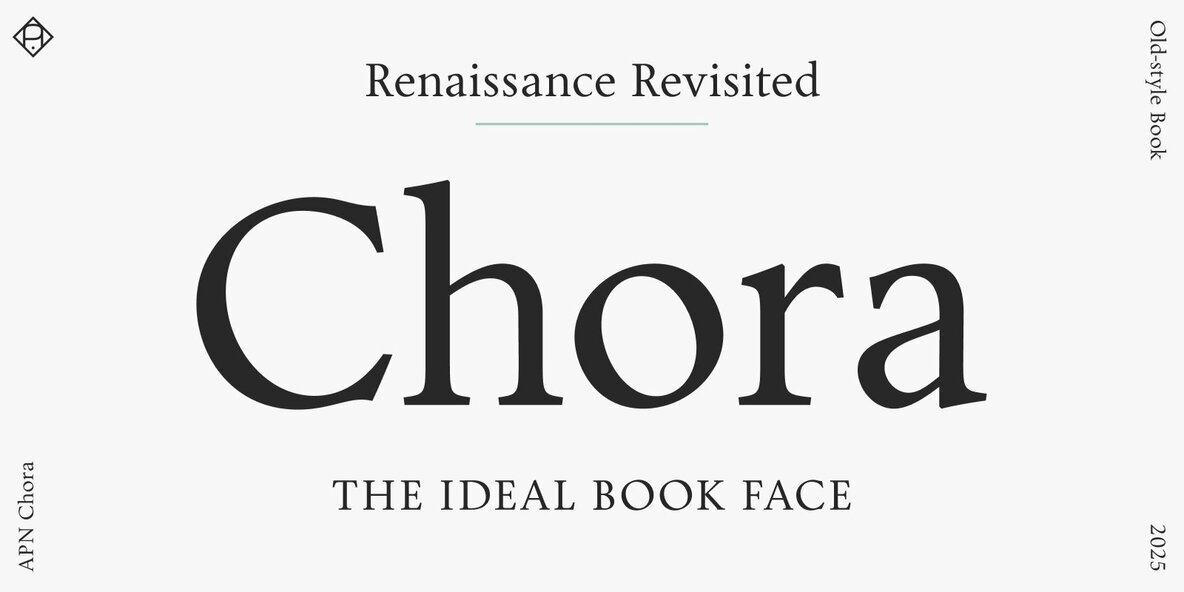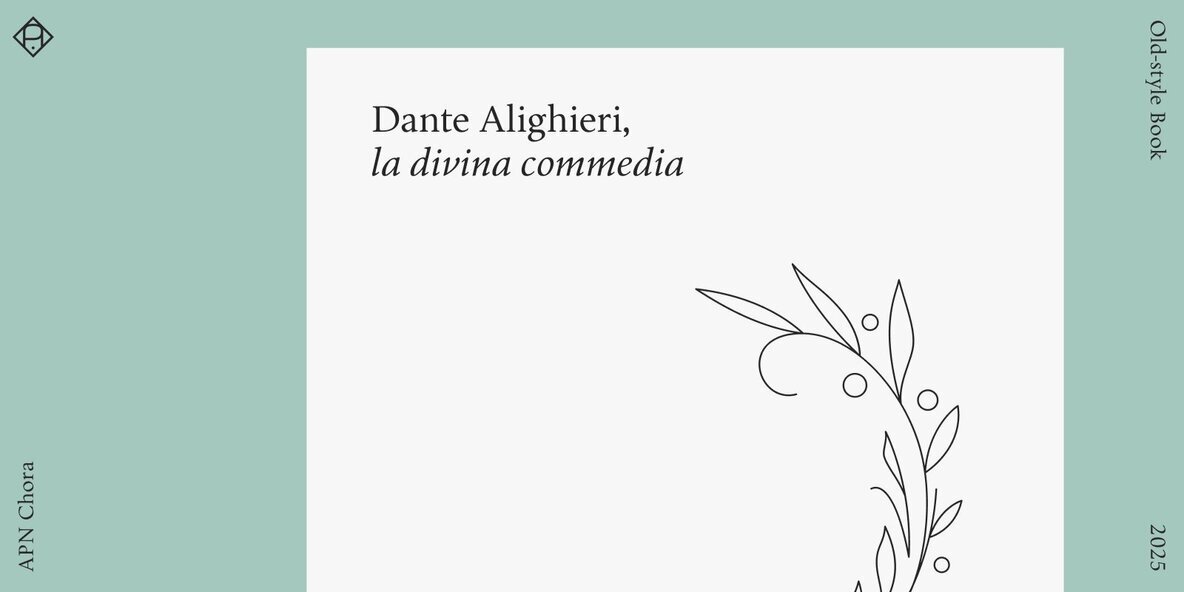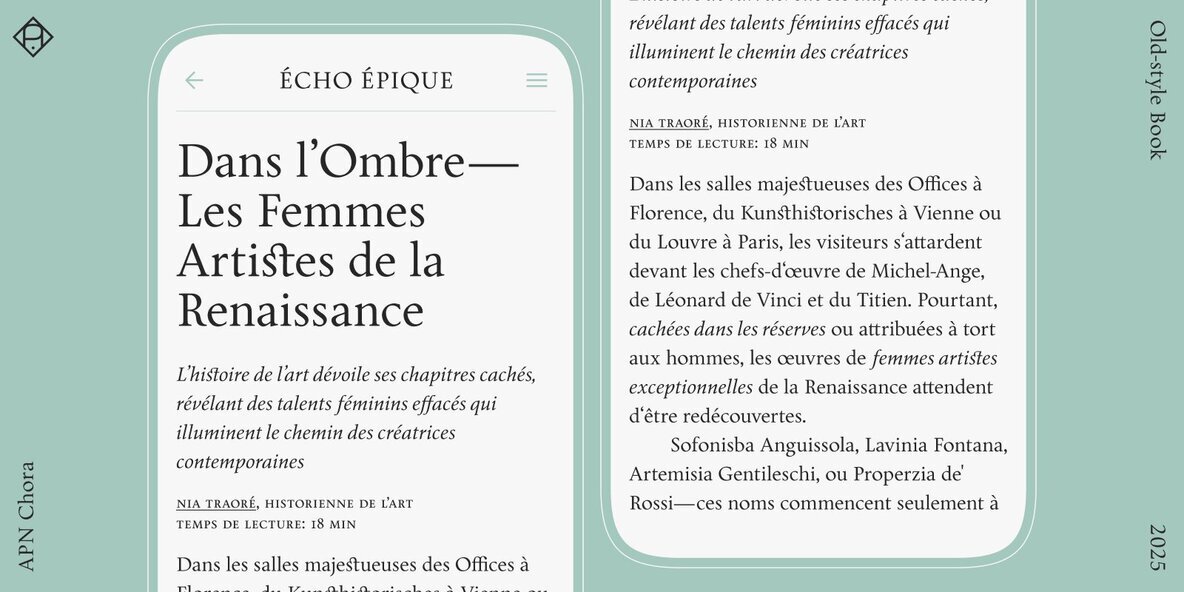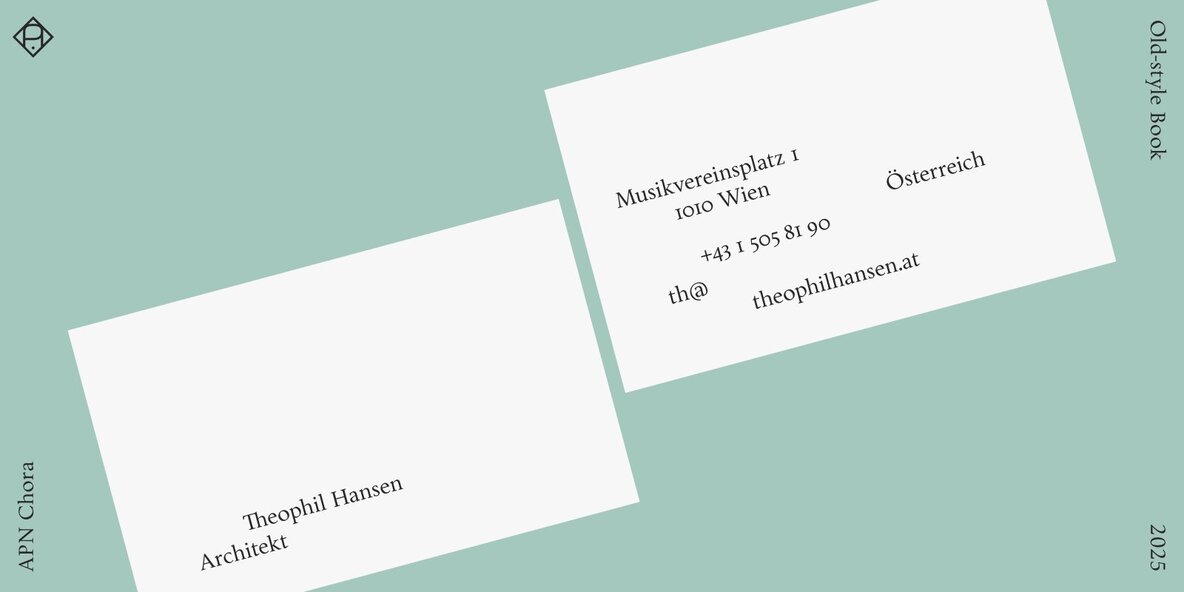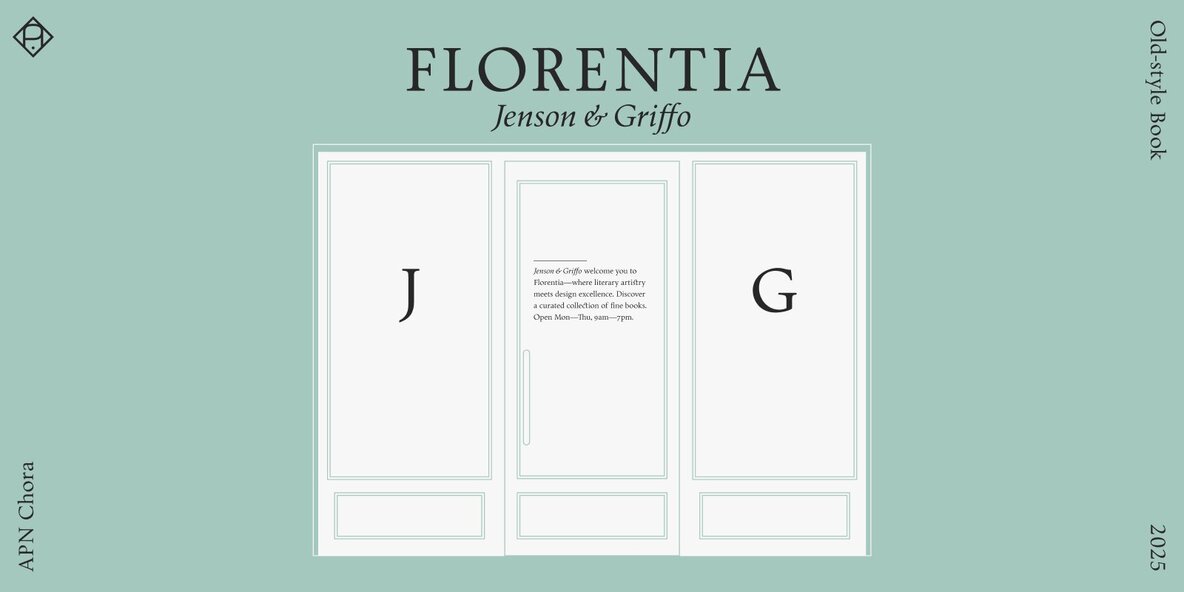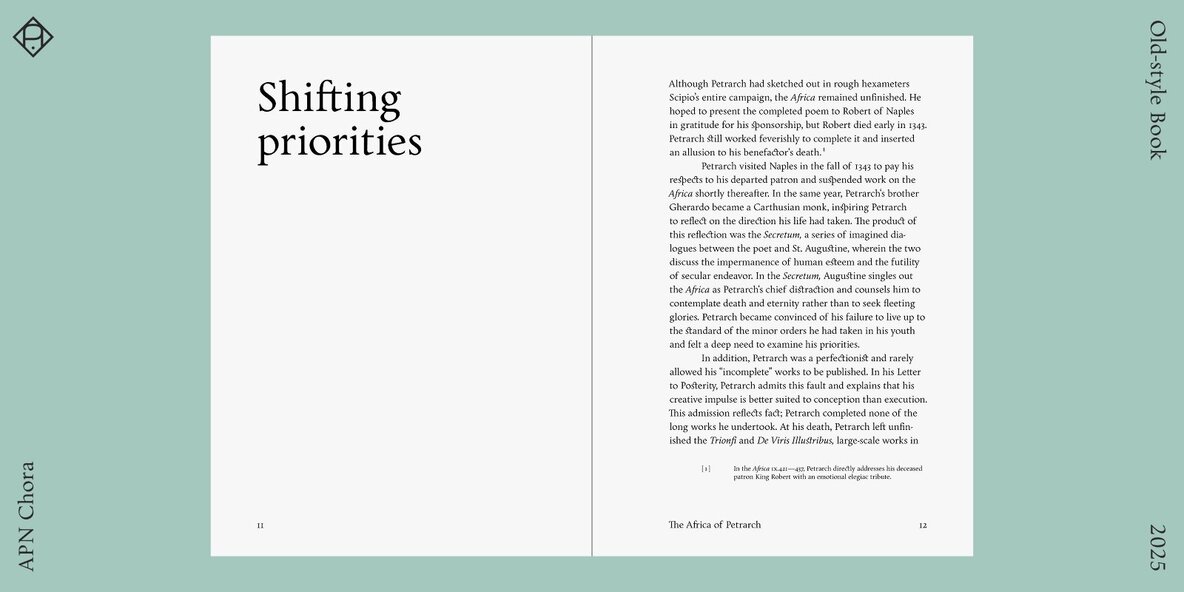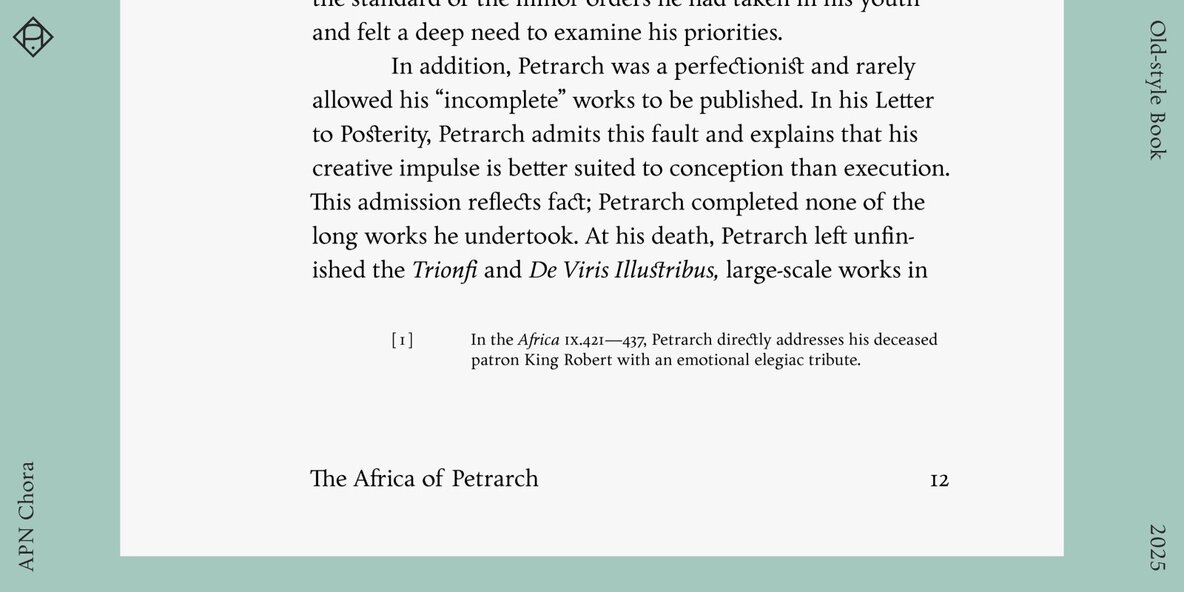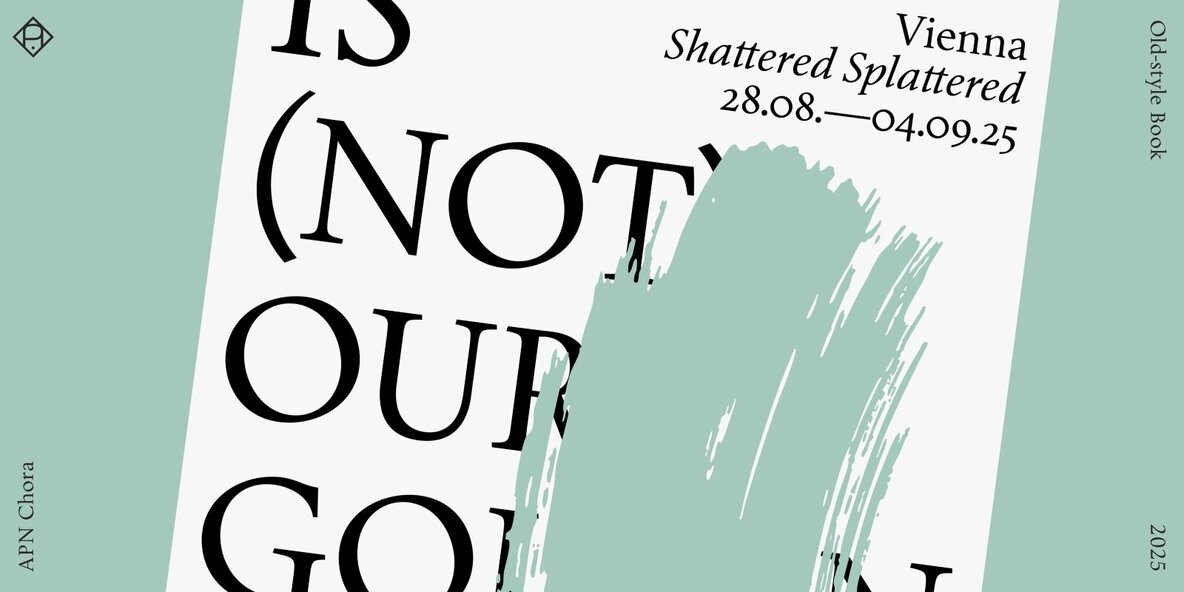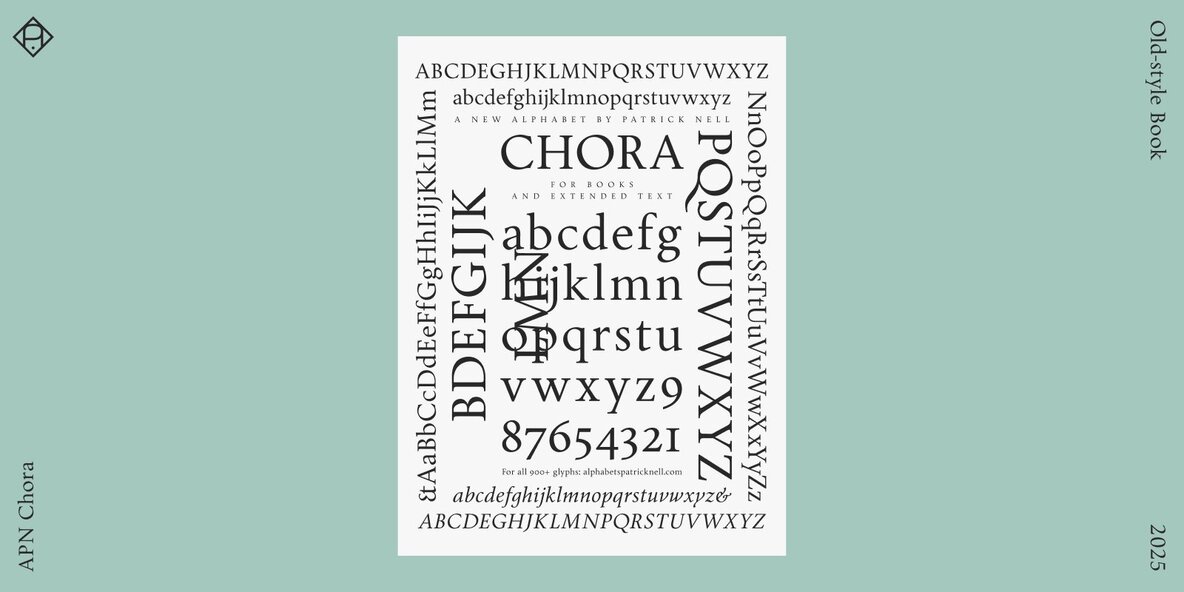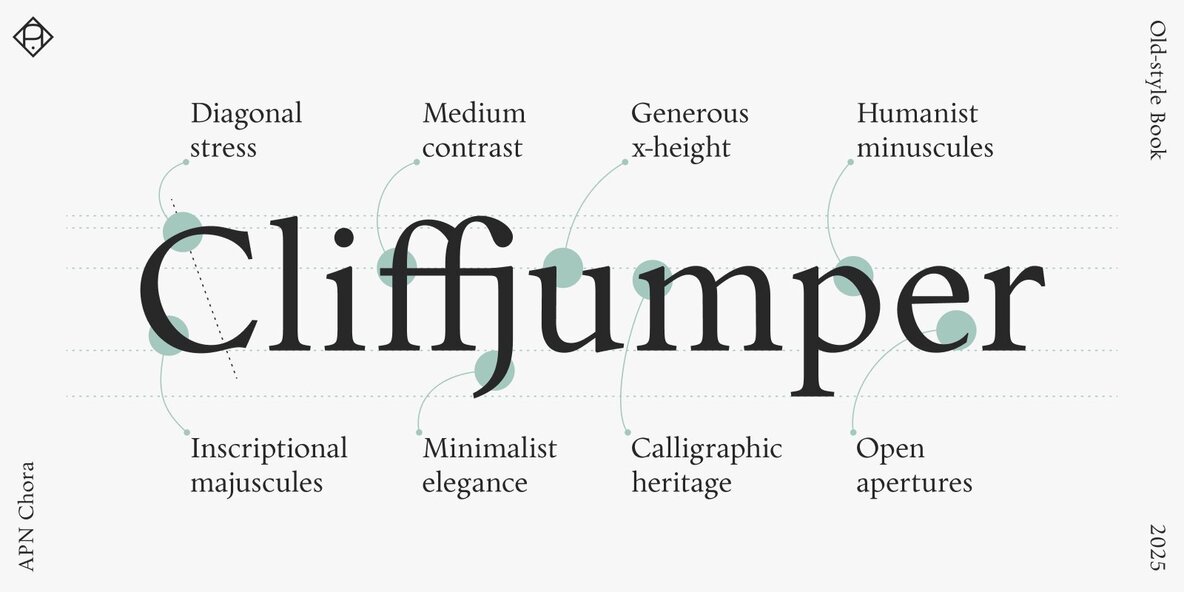
APN Chora Font
APN Chora is a contemporary old-style typeface expertly crafted for optimal legibility in books and editorial design, as well as for extended reading on screens. Available in only two styles—roman and italic—both finely tuned to each other and fully equipped for all needs of refined typography.
APN Chora offers small caps, ligatures, multiple figure and stylistic sets, alternate glyphs, fractions, mathematical symbols, and arrows. It supports a wide range of languages, including all European languages written in the Latin script. With its rationalized Renaissance construction, the typeface features a pronounced humanist axis, generous x-height, and balanced contrast between thin and thick strokes. While optimized for continuous text, its austere elegance also suits display use.